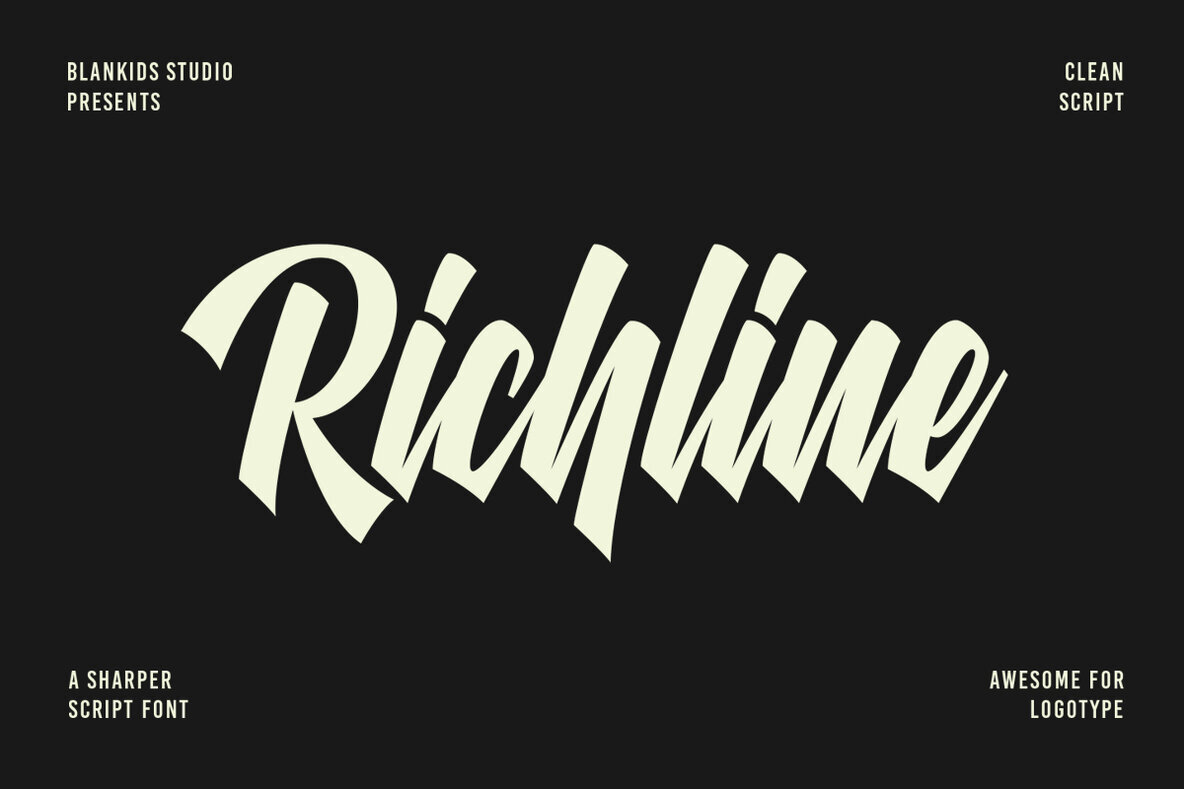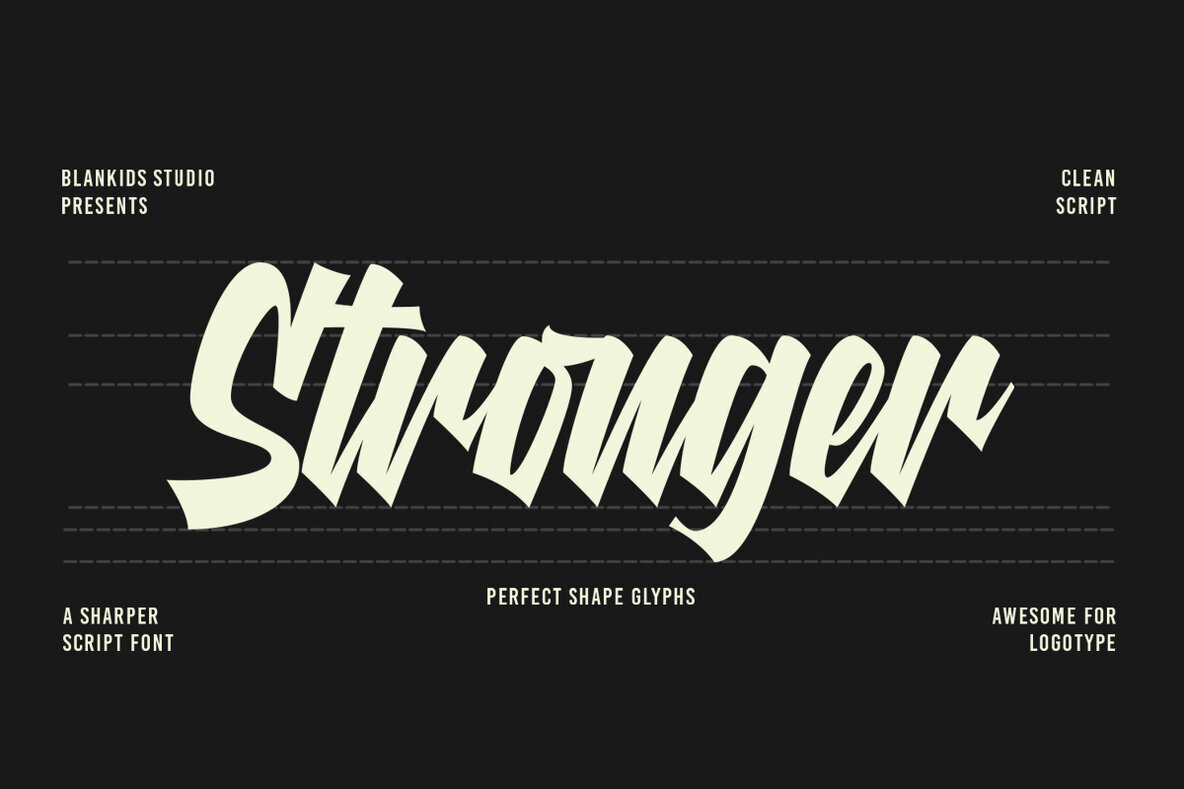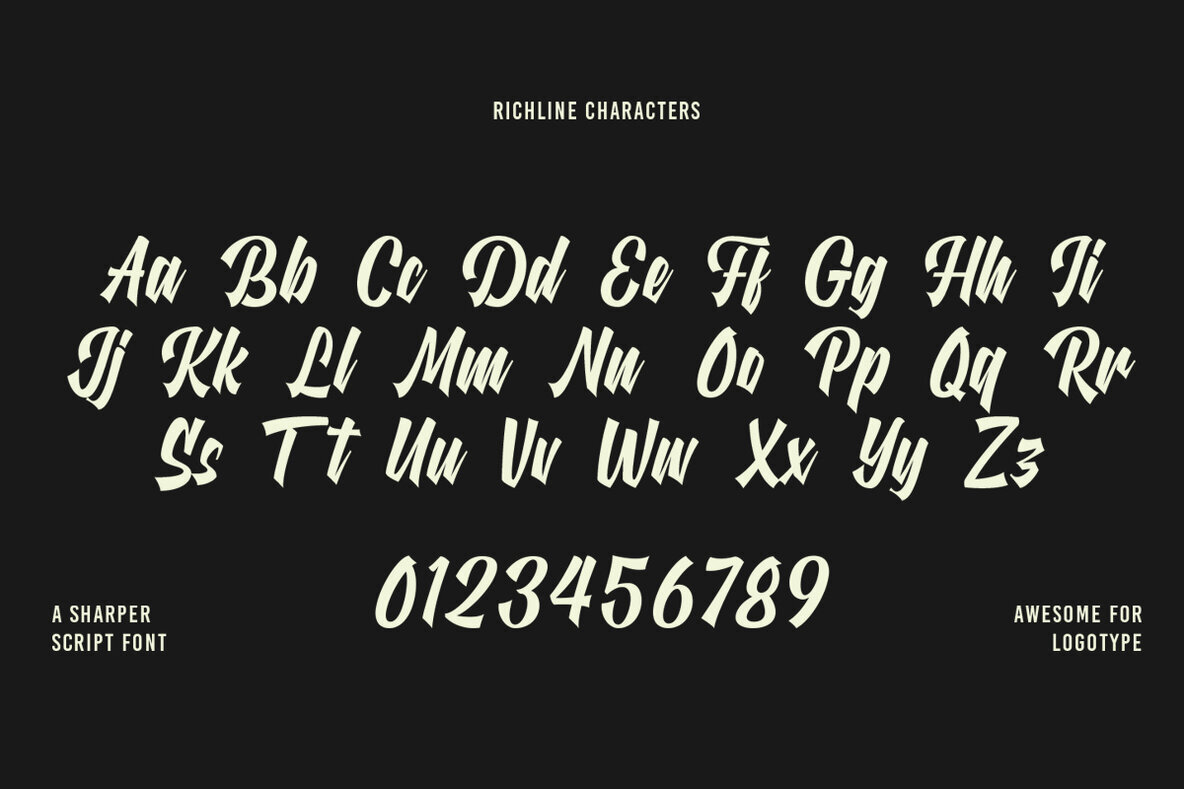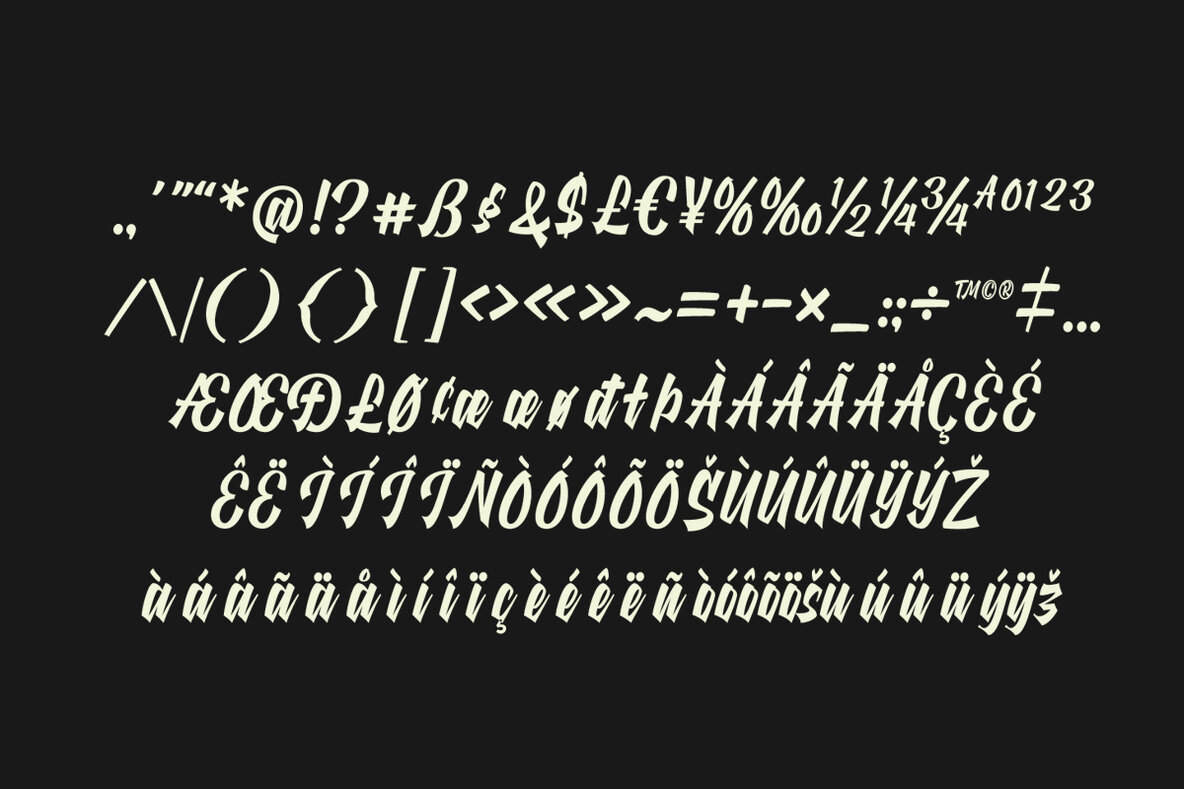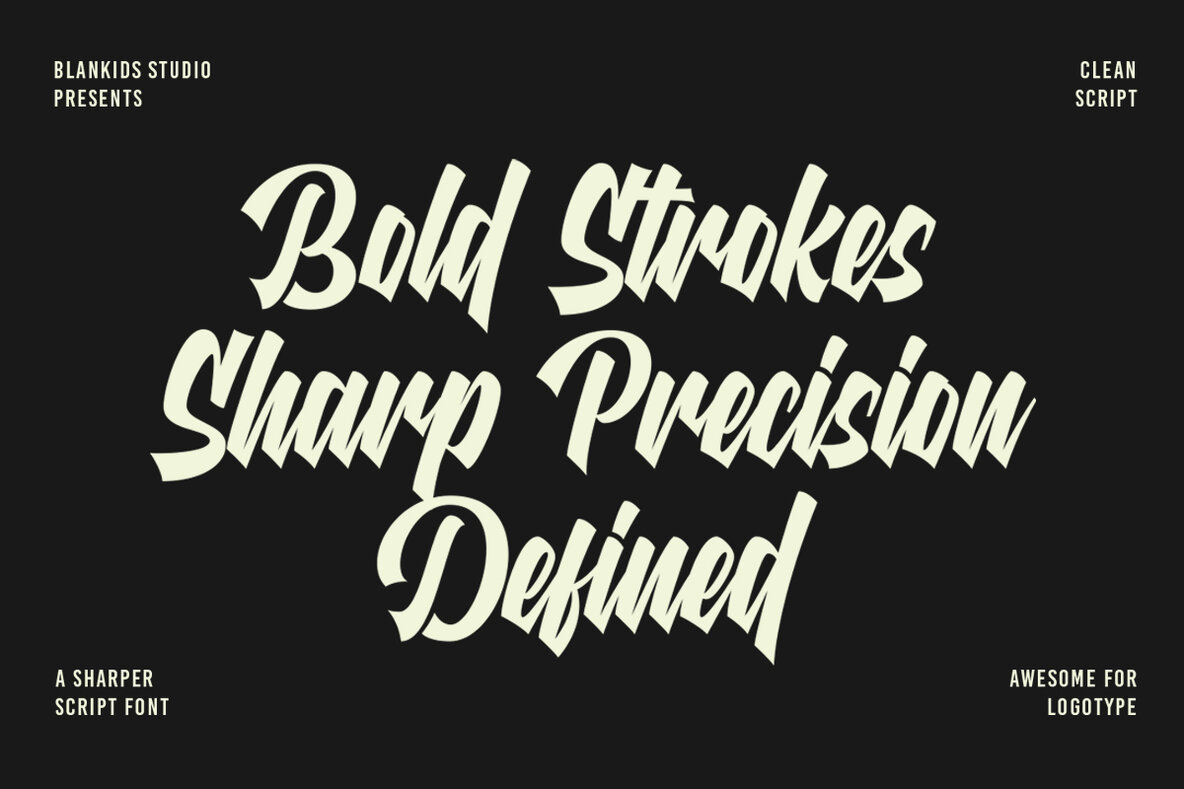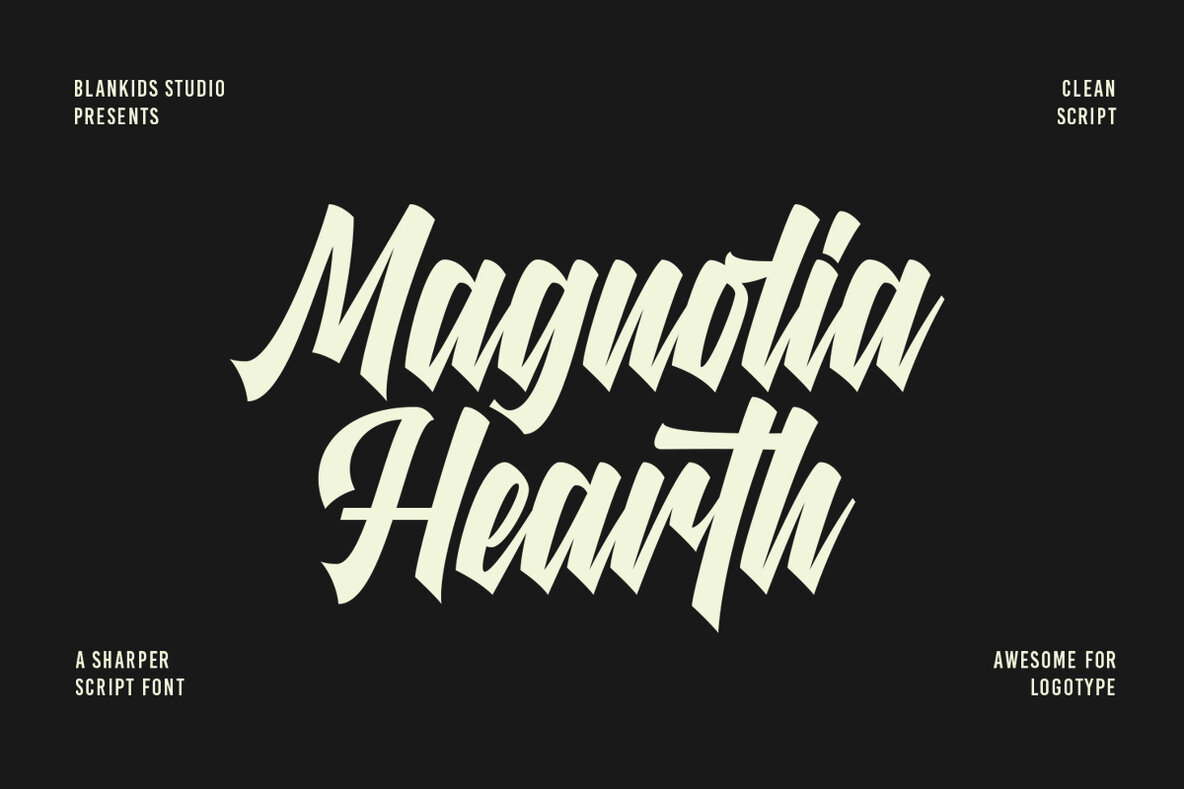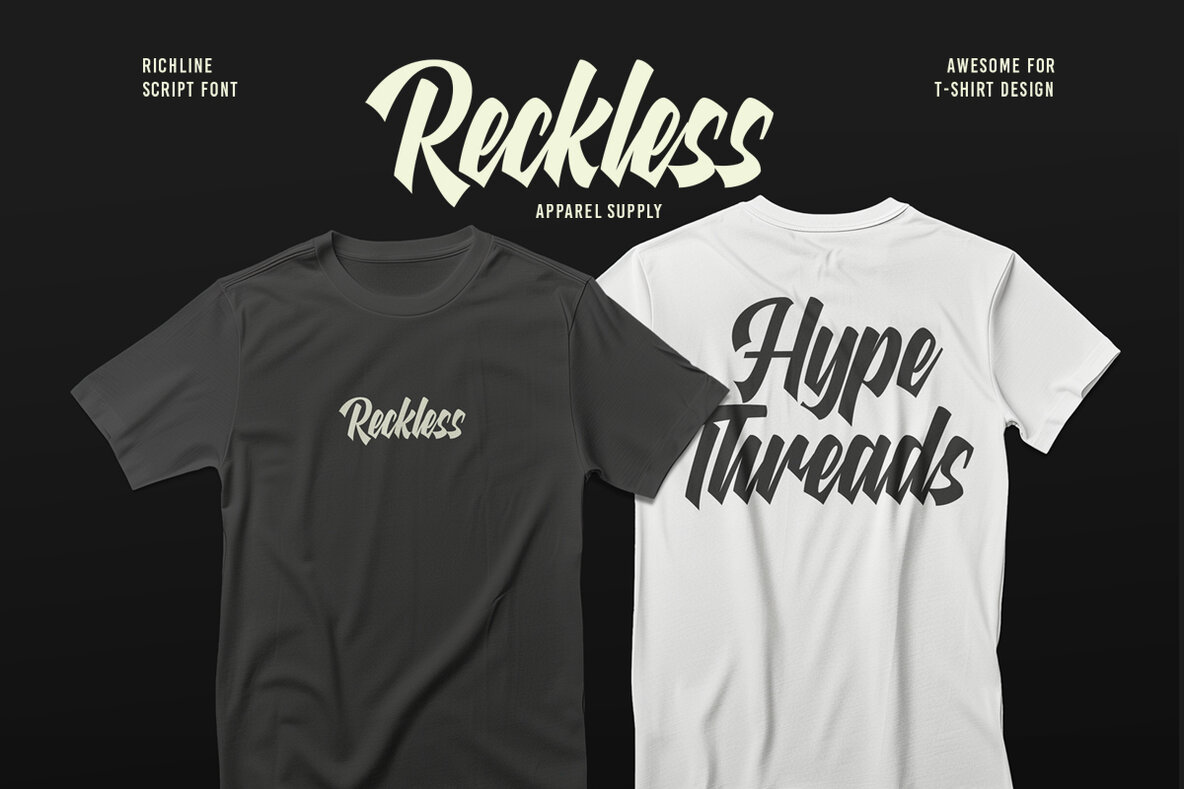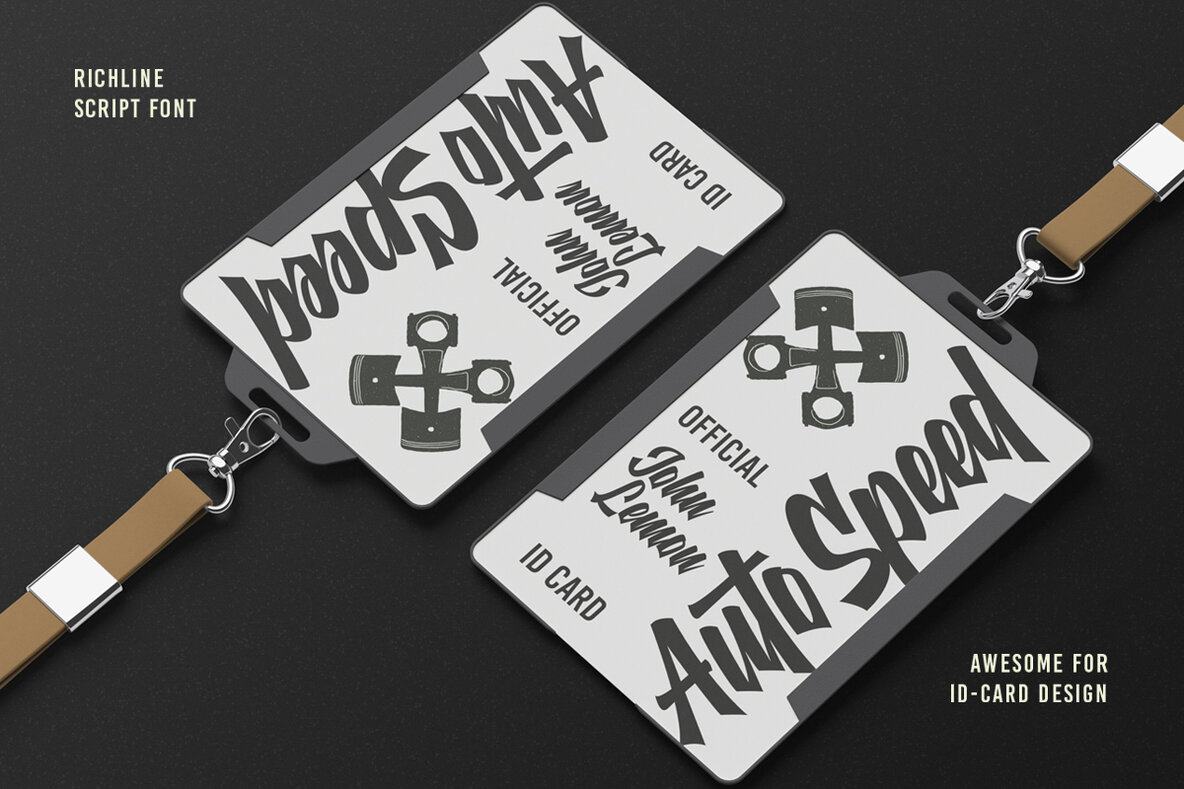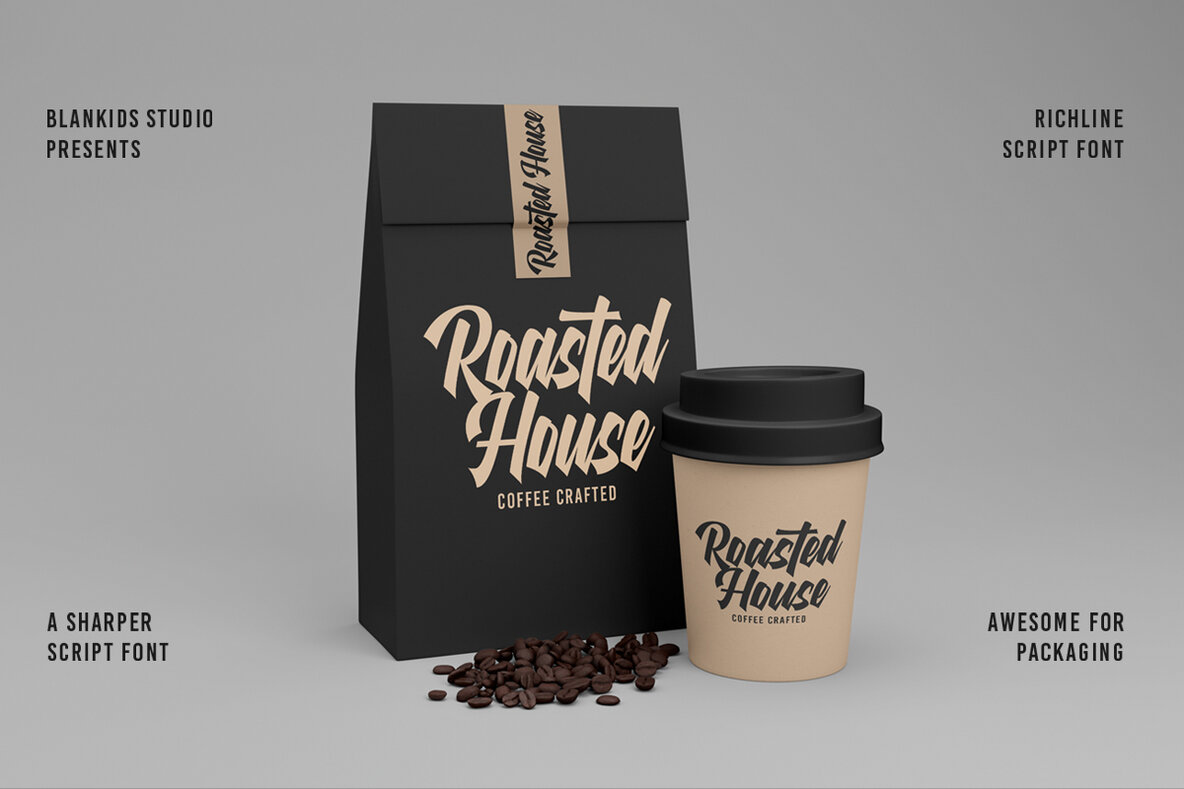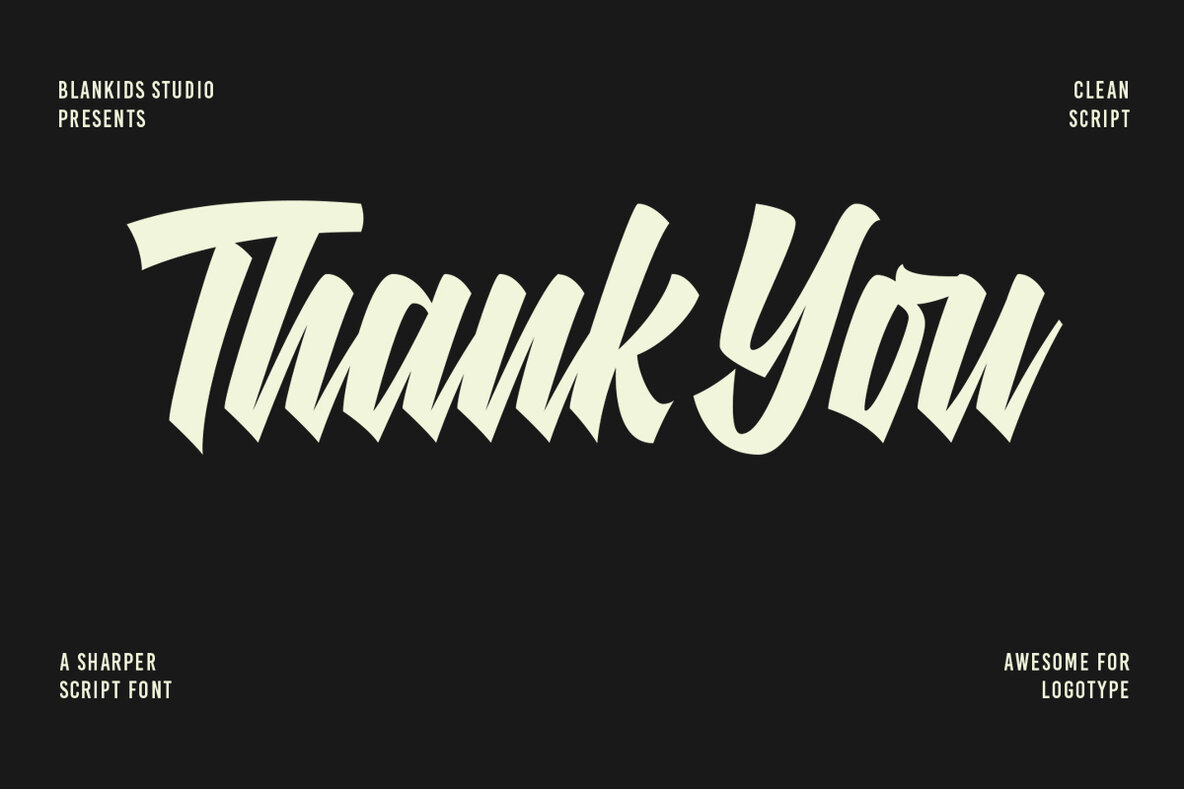
Richline Font
Richline Regular
Introducing Richline Font, the latest offering from Blankids Studio. Perfectly tailored for professional branding projects, this font excels in logotype creation, watermark design, poster making, and product packaging. With its effortlessly stylish demeanor, Richline Font ensures every letter sets the right tone for elegance and flair. The refined design of Richline Font encourages creativity, making it an ideal choice for designers seeking a sophisticated edge. Enjoy the endless possibilities of this versatile typeface as it seamlessly integrates into your creative projects.Richline Font: A Stylish Choice for Professional Branding